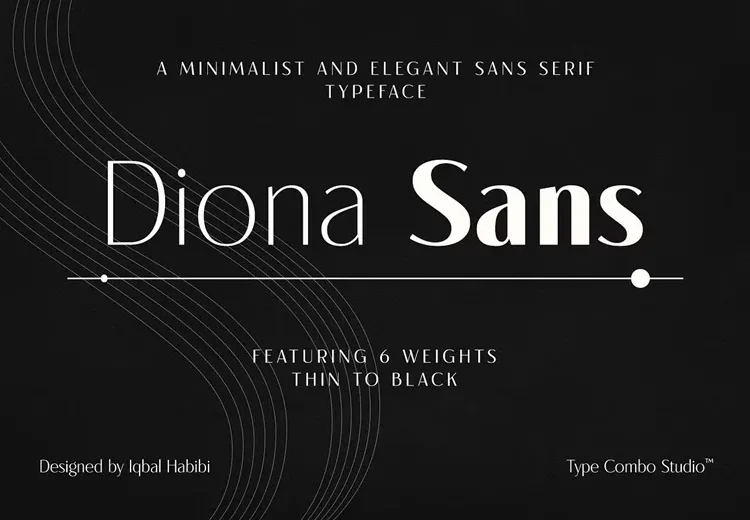
Diona Sans Font
Diona Sans is a clean, minimalist sans serif font designed to exude elegance and sophistication. With alternate characters and standard ligatures, it offers creative flexibility and refinement. The typeface comes in six versatile weights—Thin, Light, Regular, Medium, Bold, and Black—making it adaptable to various design needs. Its Extended Latin character set supports over 75 languages, ensuring broad usability.
This high-contrast font is especially suited for impactful large-scale designs such as headlines, logotypes, posters, banners, magazine covers, and editorial displays. Its sleek, modern aesthetic elevates any project it graces.